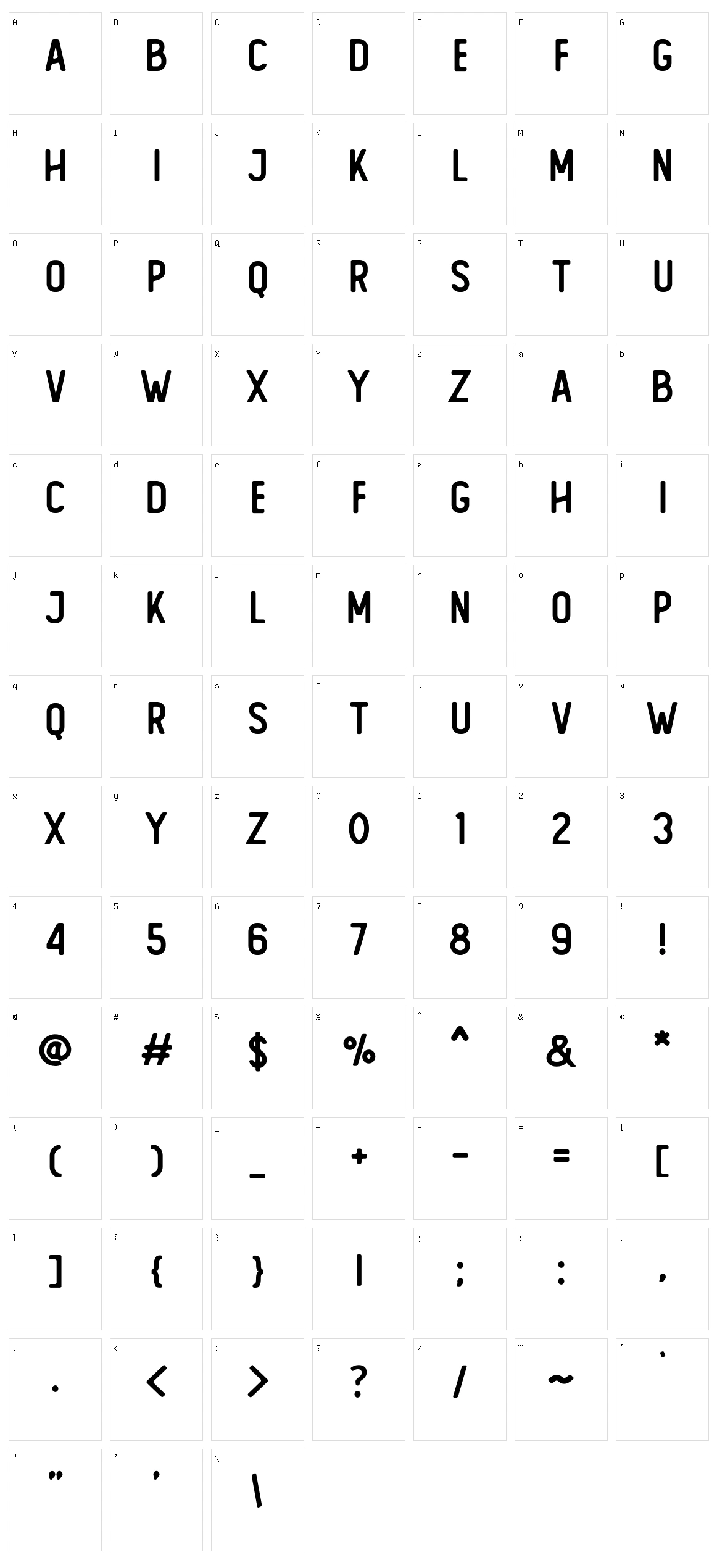
The free font The Foregen is carefully designed by Vultype, showcasing a thoughtful balance of creativity and usability and falls under the Retro font style. When you download the ZIP file, it contains only 1384.47 KB of font files, making it lightweight and quick to download. Please review the license details below to understand permitted usage and distribution rights. If license information is not available, we recommend using this font for personal projects only or contacting the author directly for commercial usage permissions.